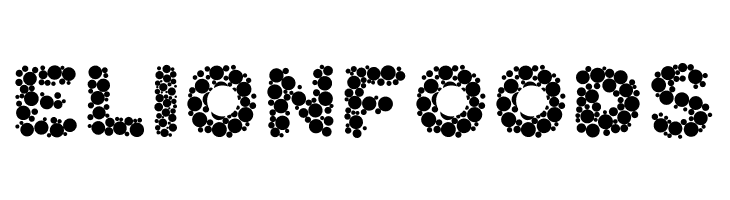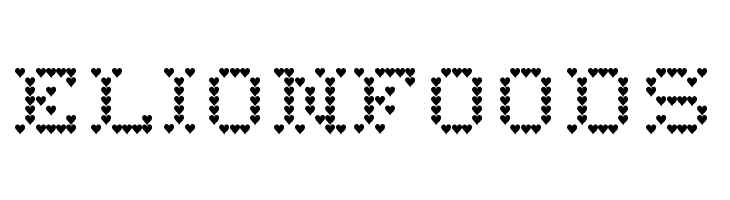
A decorative emoji-style font featuring expressive faces and symbols in circles.
A sci-fi themed icon font featuring recognizable pop culture symbols.
A display font composed entirely of diverse cross and geometric symbols.
A decorative emoticon-based font with playful, expressive faces.
A playful, bubble-themed decorative font with a bold and whimsical style.
A decorative font made entirely of heart shapes, perfect for romantic themes.
A playful, dotted font with a modern and creative style.
A meme-inspired decorative font made from rage comic faces.
A modern, dot-based font with a digital and futuristic style.
A modern, dotted font with consistent spacing and a playful style.